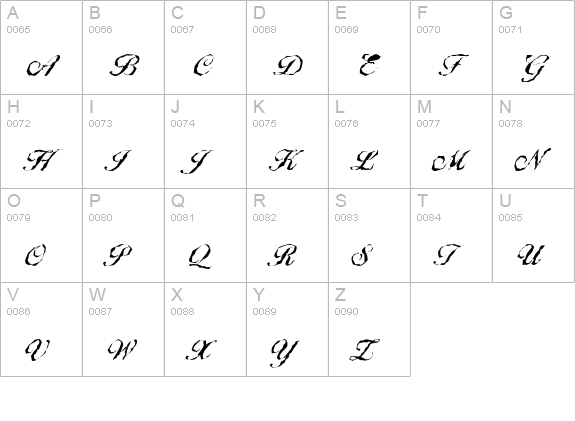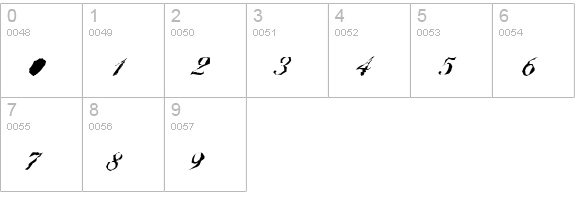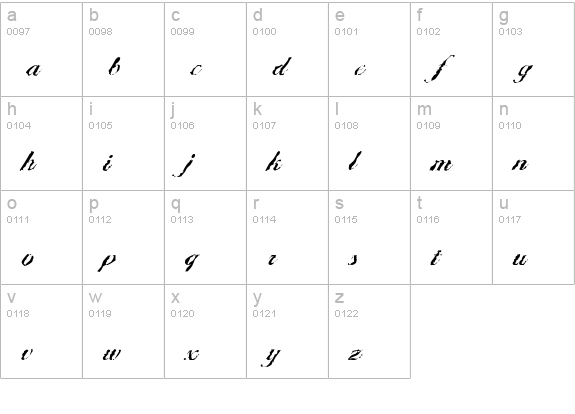
BallantinesRandom-Medium-Regular is a balanced, medium-weight variant in the BallantinesRandom typeface family \xE2\x80\x94 well suited to sub-headlines, navigation, and balanced editorial work.
BallantinesRandom-Medium-Regular is a versatile and modern font that strikes the perfect balance between professionalism and creativity. With its clean lines and smooth curves, this font is ideal for a wide range of design projects, from branding to advertising to web design. The medium weight of BallantinesRandom-Medium-Regular gives it a strong presence without being overpowering, making it perfect for headlines, logos, and other attention-grabbing elements. Its unique random appearance adds a touch of playfulness and originality to any design. What's more, BallantinesRandom-Medium-Regular is completely free for personal and commercial use, making it a valuable addition to any designer's toolkit. You can easily download this font for free at FontsMarket.com and start using it in your projects right away. Don't miss out on this opportunity to elevate your designs with the stylish and versatile BallantinesRandom-Medium-Regular font.